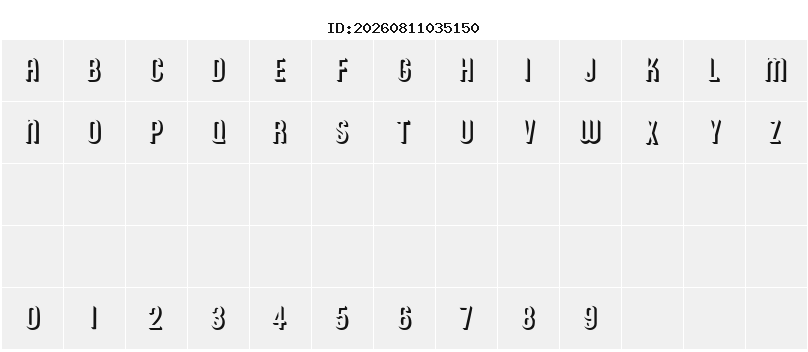
RoundedRelief Preview
• Font Name: RoundedRelief
• Full Font Name: RoundedRelief
• PostScript Name: RoundedRelief
About RoundedRelief.ttf
RoundedRelief.ttf is a modern, elegant sans-serif font designed for ultimate readability and visual harmony. Perfect for branding, headlines, web design, and print materials.